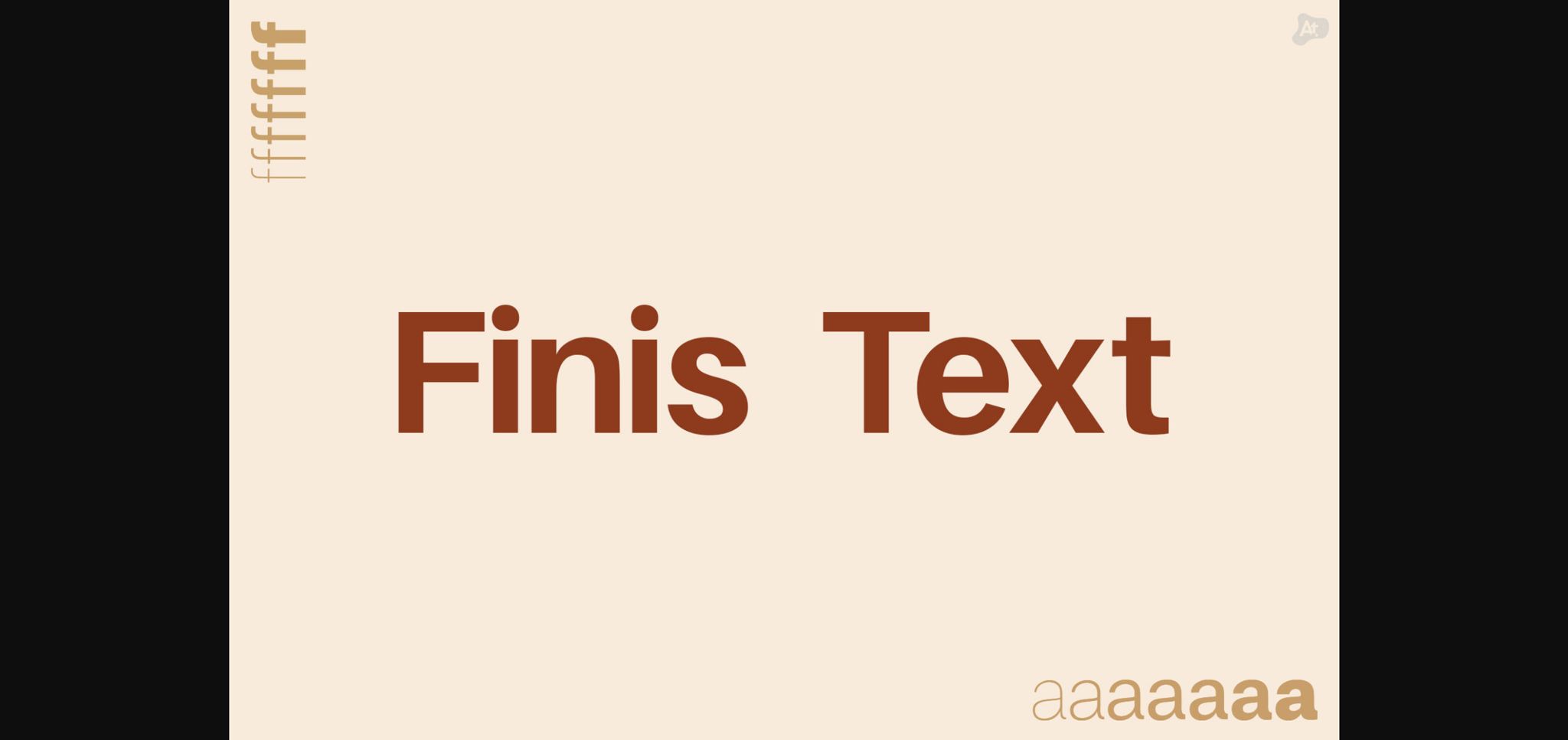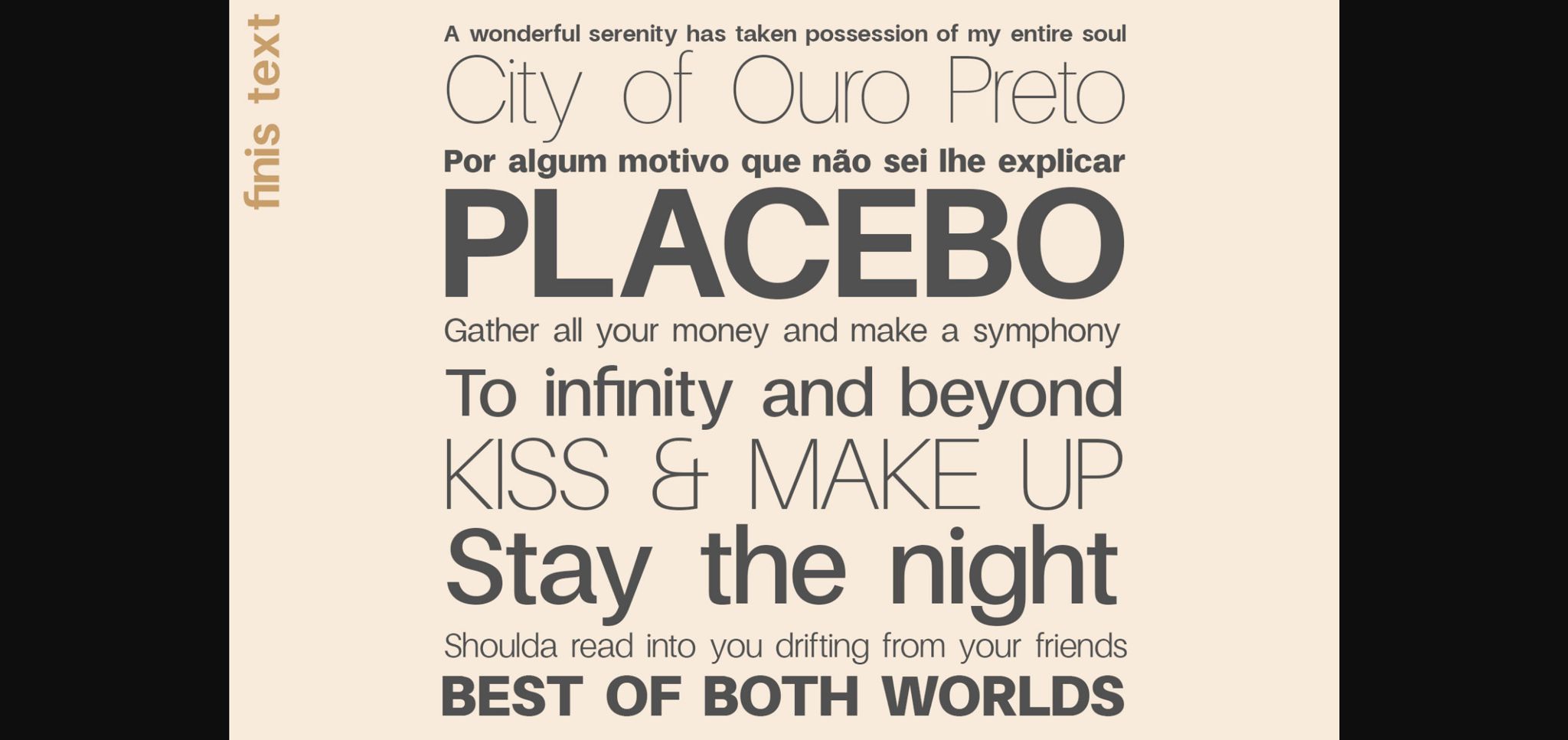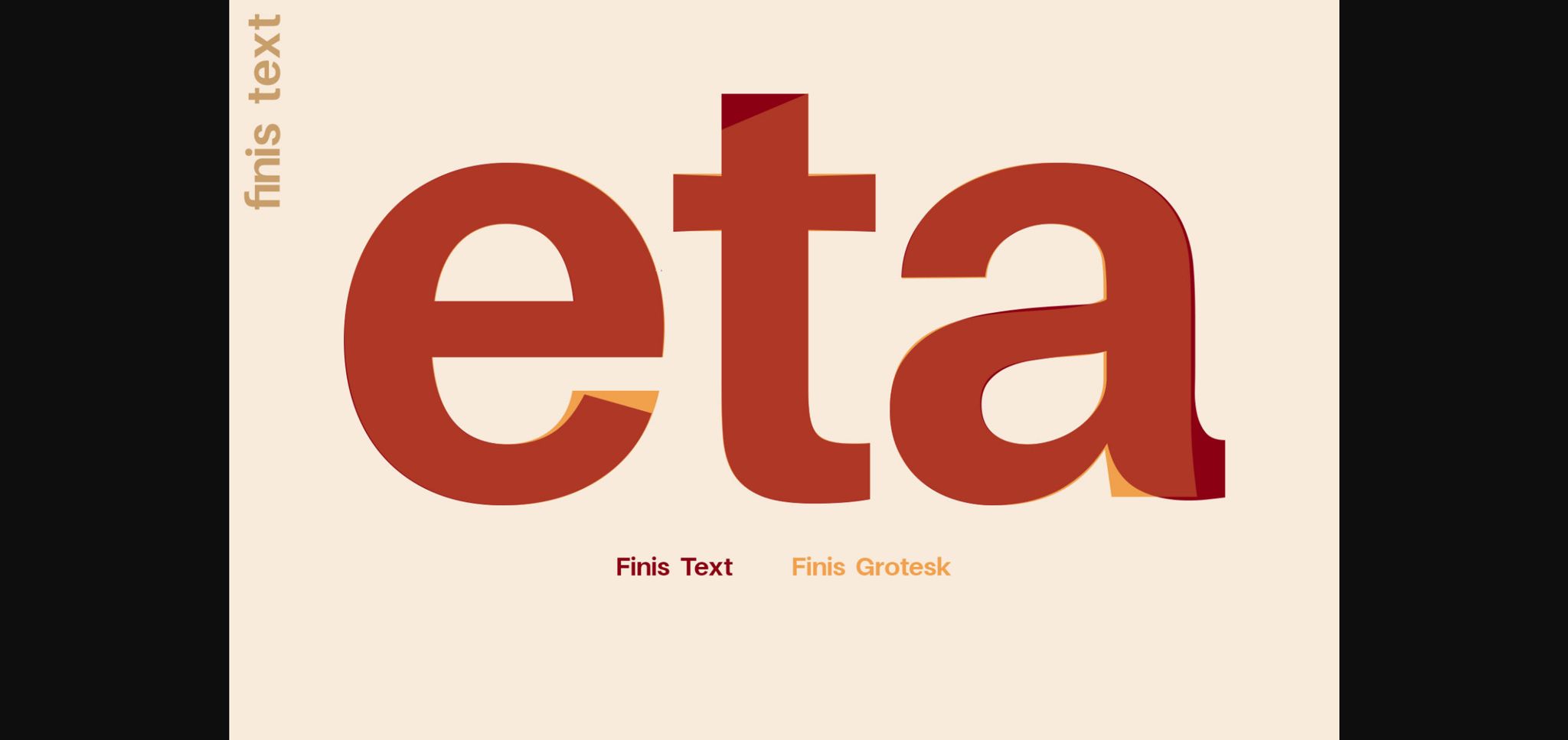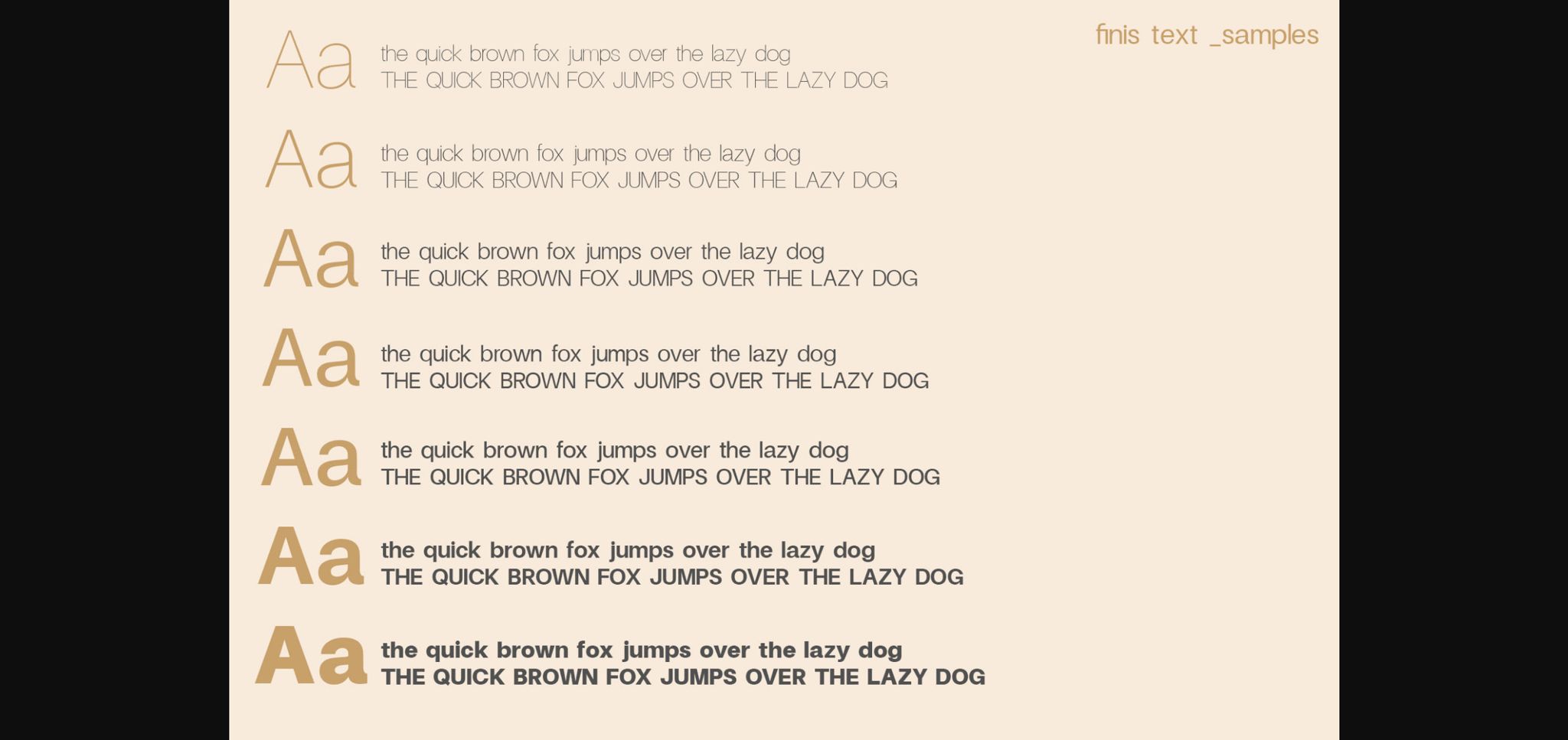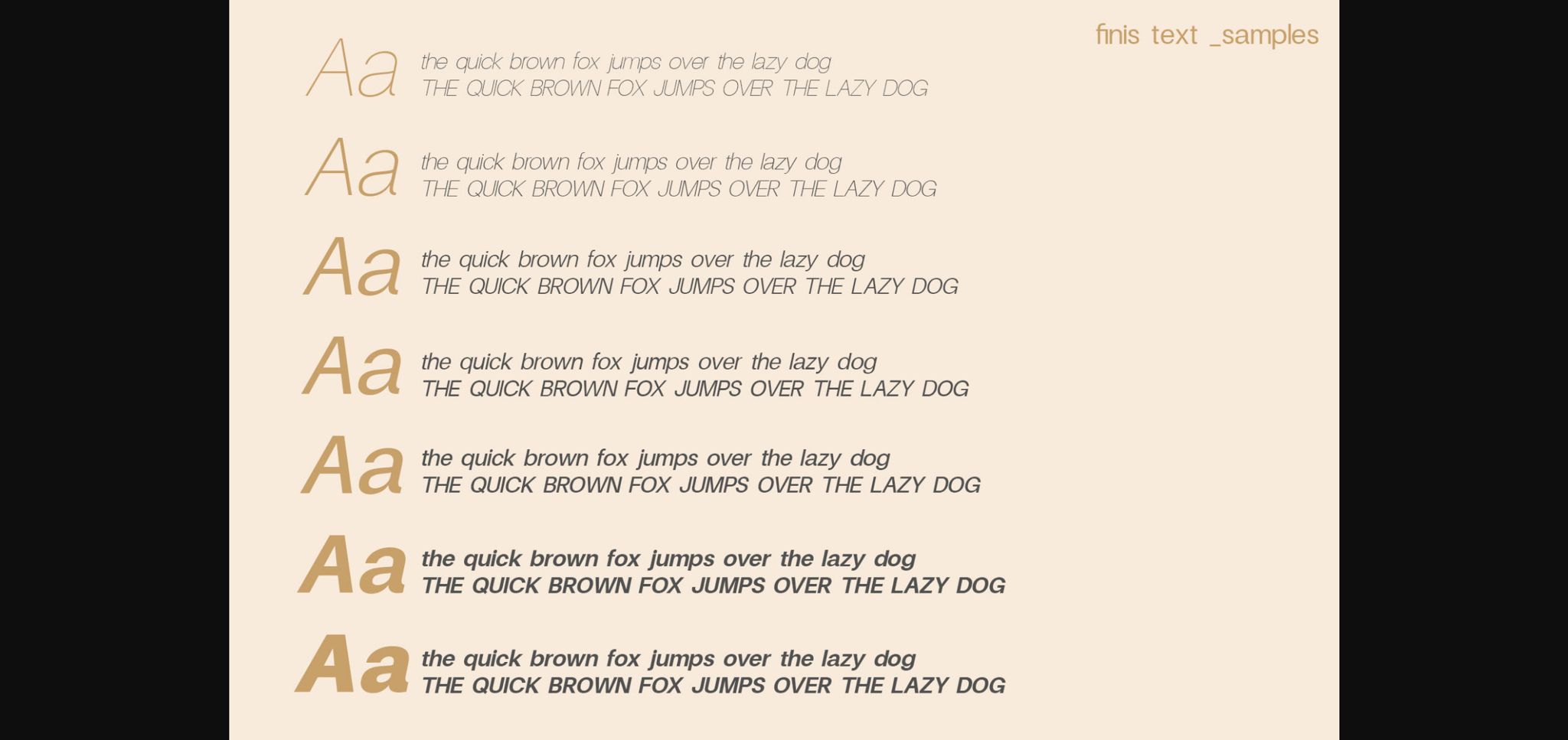
Finis Text Font
Finis Text is a modern, geometric, and contemporary sans-serif type family that focuses on clarity and legibility. Inspired by the Bauhaus movement, it’s designed for headlines or texts, displaying simple and effective glyph design.